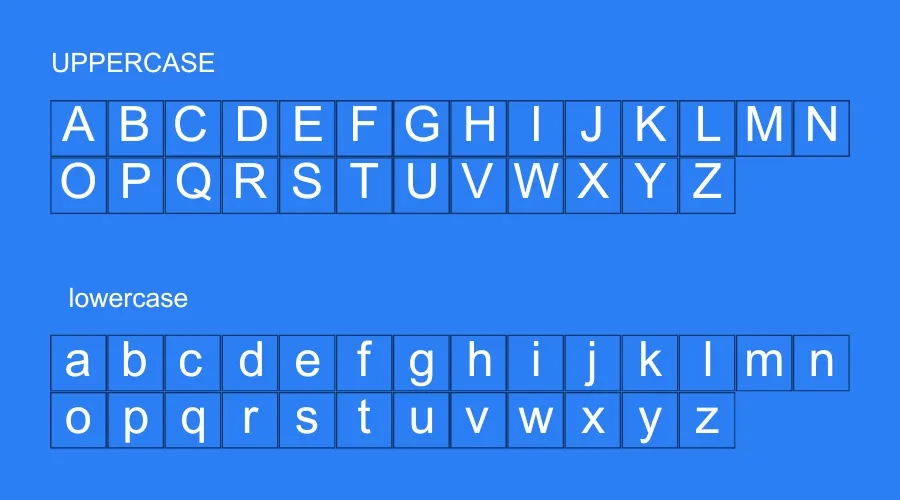
Arial Arm St Font
About Arial Arm St Font
Arial Arm St Font is a design that has a distinct character the font is ideal for any new project. It is suitable for a variety of purposes since it is simple to read and its features have trendy appeal.
Letters of this font, have a very smooth look there are few characters in every letter of this font that has the right height, width, and ideal space between the letters. It has a pairing function that enables you to combine it with dm sans font to give your project a special appearance.
An attractive texture design can be seen in this typeface. This typeface is creative, unique, and perfect for any design project.